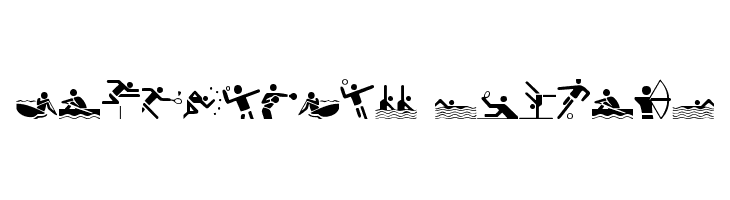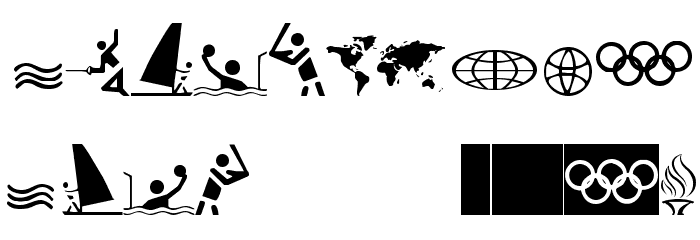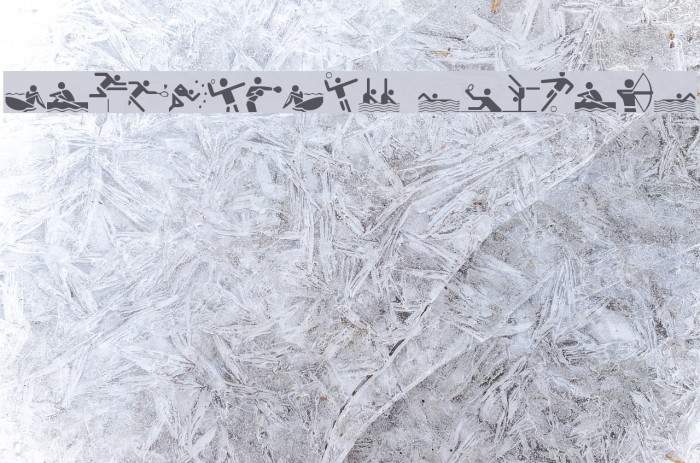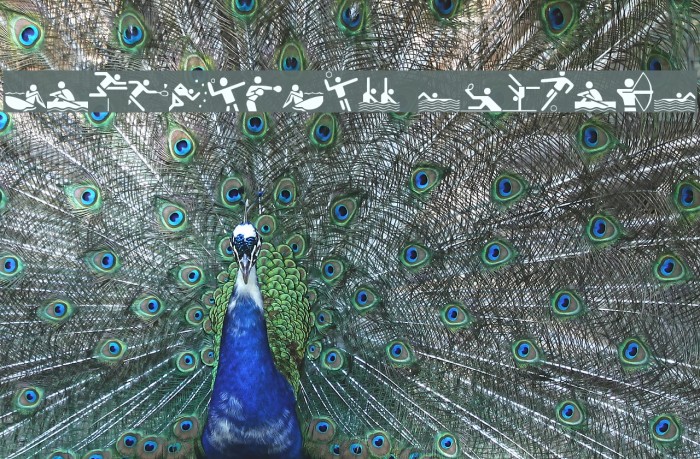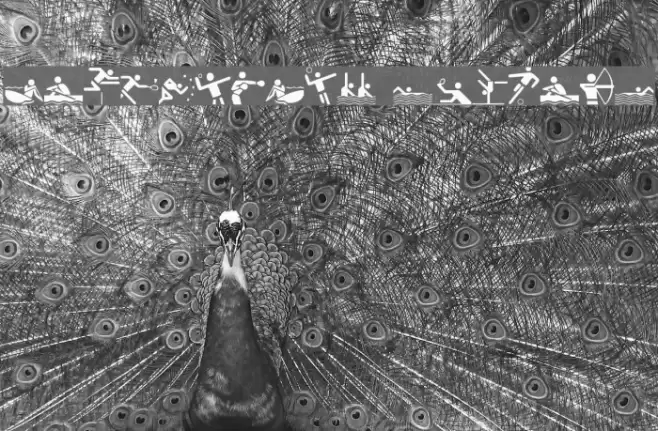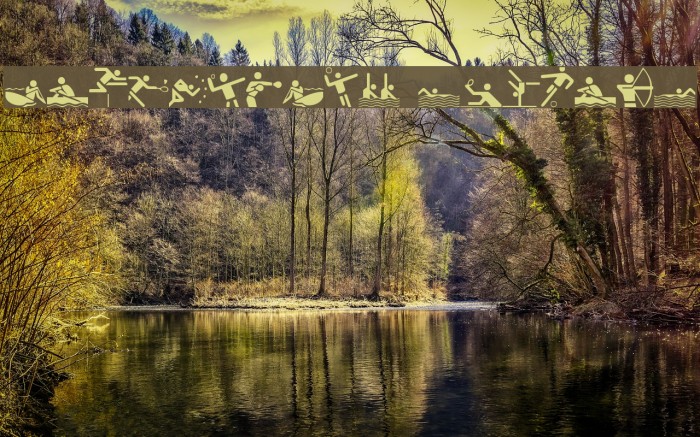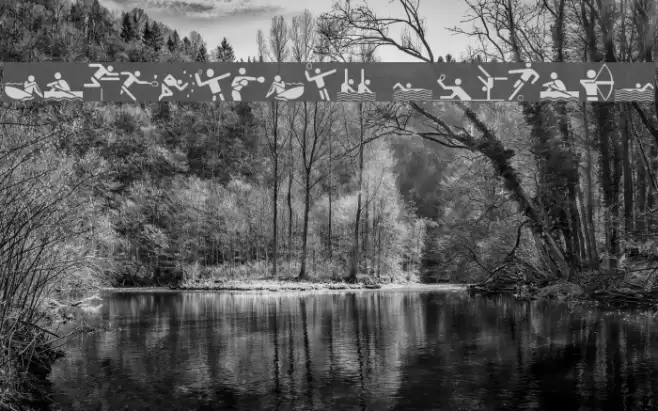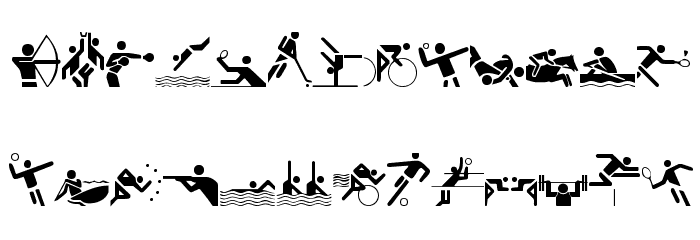
Olympicons Regular Font
Olympicons Regular Description
This is a decorative font featuring a series of pictograms representing various Olympic sports and symbols. Each character is a stylized, minimalist depiction of an athlete or Olympic-related icon, such as cycling, swimming, and gymnastics, as well as the Olympic rings and torch. The design is bold and clear, making it suitable for visual communication where language-neutral symbols are needed. The icons are consistent in style, with a focus on simplicity and recognizability, using solid black shapes to convey motion and activity.
A decorative font with pictograms of Olympic sports and symbols from sports fonts.
- Proposed Projects: Ideal for sports event branding, educational materials about the Olympics, or any project requiring universal sports symbols.
- Use Case: Logos, Branding, Educational materials